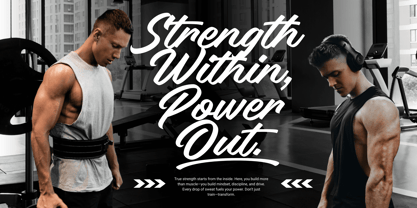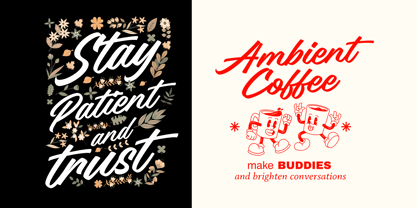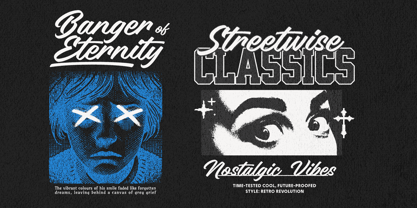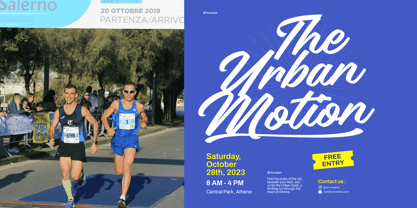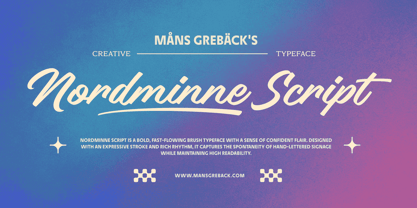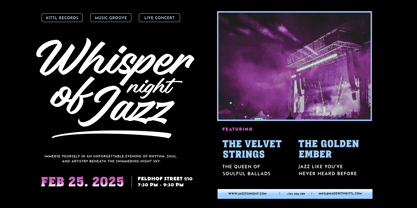
Nordminne Script
Nordminne Script is a bold, fast-flowing brush typeface with a sense of confident flair. Designed with an expressive stroke and rich rhythm, it captures the spontaneity of hand-lettered signage while maintaining high readability.
Use underscore _ anywhere in a word to create a swash.
Example: Flower_garden
For different swashes, use multiple underlines.
Example: Hand____drawn
Its uppercase letters stand out with wide, sweeping gestures, while the lowercase maintains a steady balance, dancing smoothly across the baseline. The connection between characters feels natural, almost like a signature in motion. It's a style that fits perfectly on a vintage café sign or the side of a classic racing car—anywhere personality meets motion.
The font is built with advanced OpenType functionality and guaranteed top-notch quality, containing stylistic and contextual alternates, ligatures and more automatic and manual features; all to give you full control and customizability.
It has extensive lingual support, covering all Latin-based languages, from North Europa to South Africa, from America to South-East Asia. It contains all characters and symbols you'll ever need, including all punctuation and numbers.
Designed and produced by Mans Greback, a Swedish type designer known for his high-quality calligraphy and lettering fonts. His work blends traditional craftsmanship with modern design needs, resulting in typefaces that are both expressive and reliable.
Måns Grebäck is a type designer and font creator specializing in script typography, but with a portfolio containing a vast selection of styles. Typefaces from Måns Grebäck are used as company and product logotypes, as well as headlines and in advertisement by a wide range of industries world-wide. Founded by Måns Grebäck in 2010, Mans Greback AB originally went under the name of Mawns Fonts and later Aring Typeface AB. While the foundry has its seat Örebro, Sweden, Måns also lives in Portugal. The Premium Foundry page can be viewed Here.